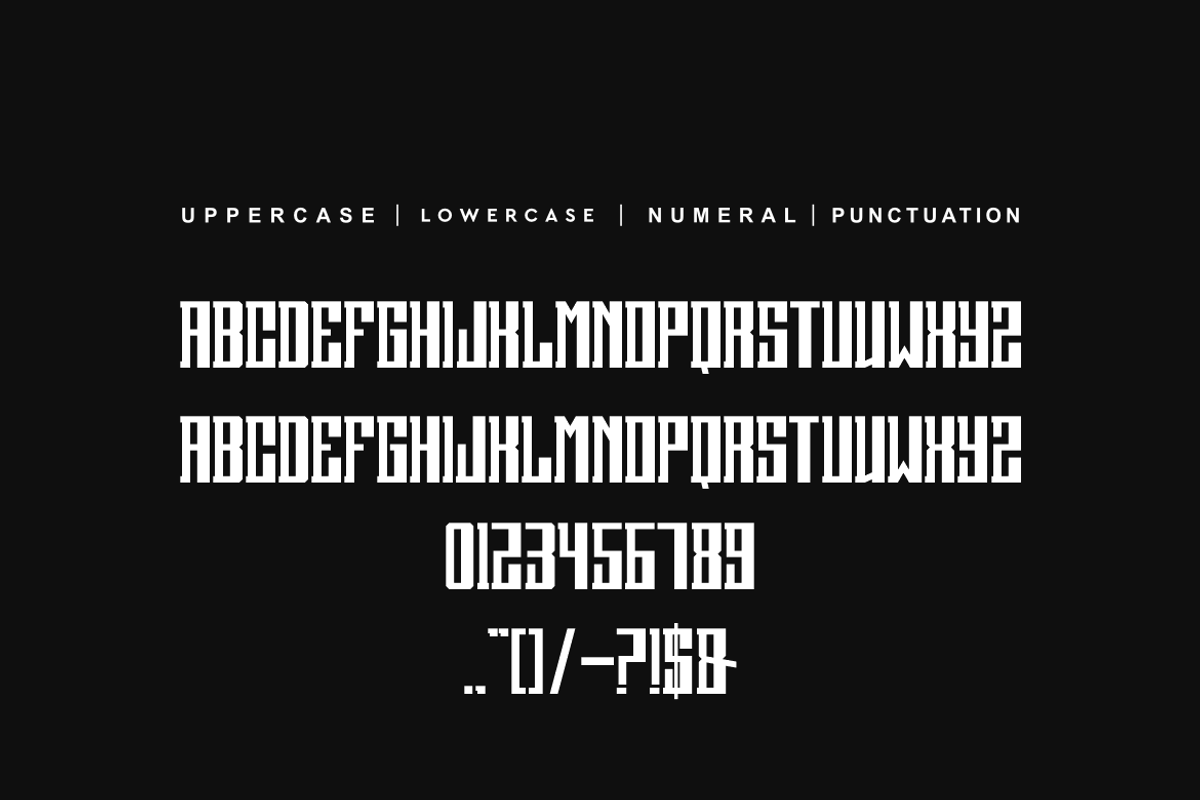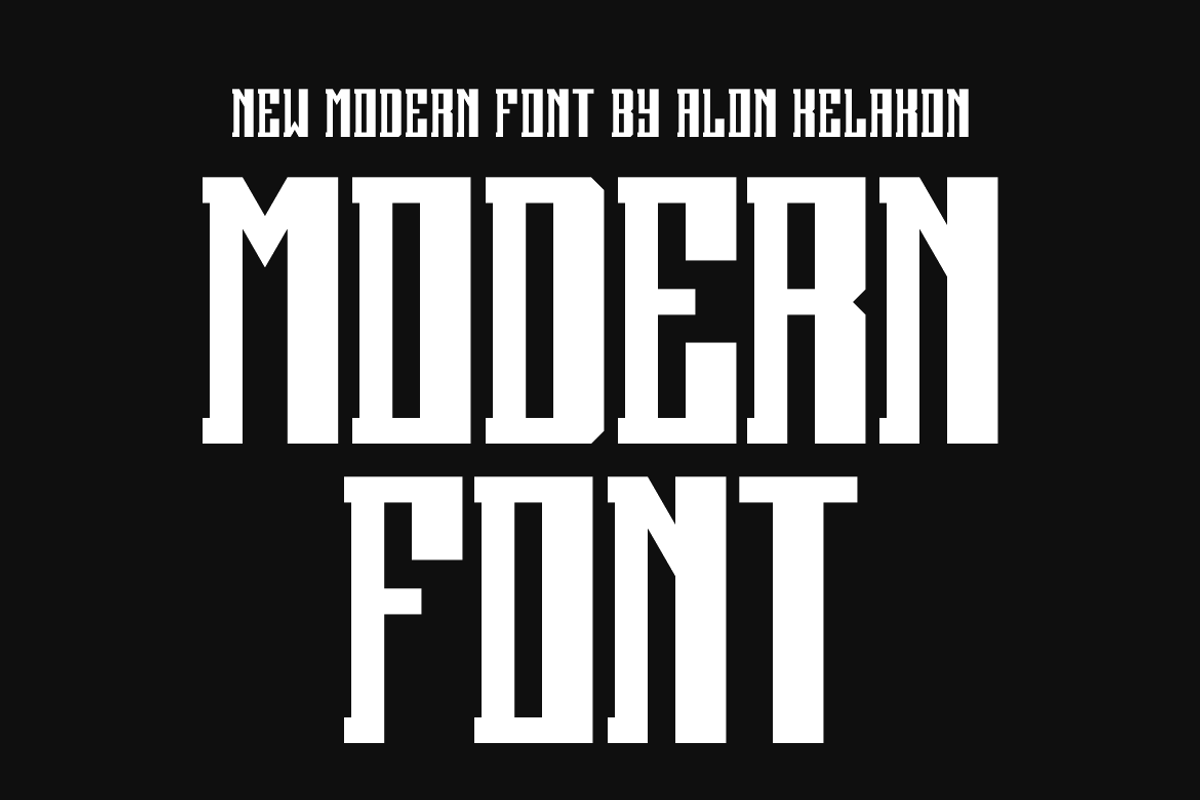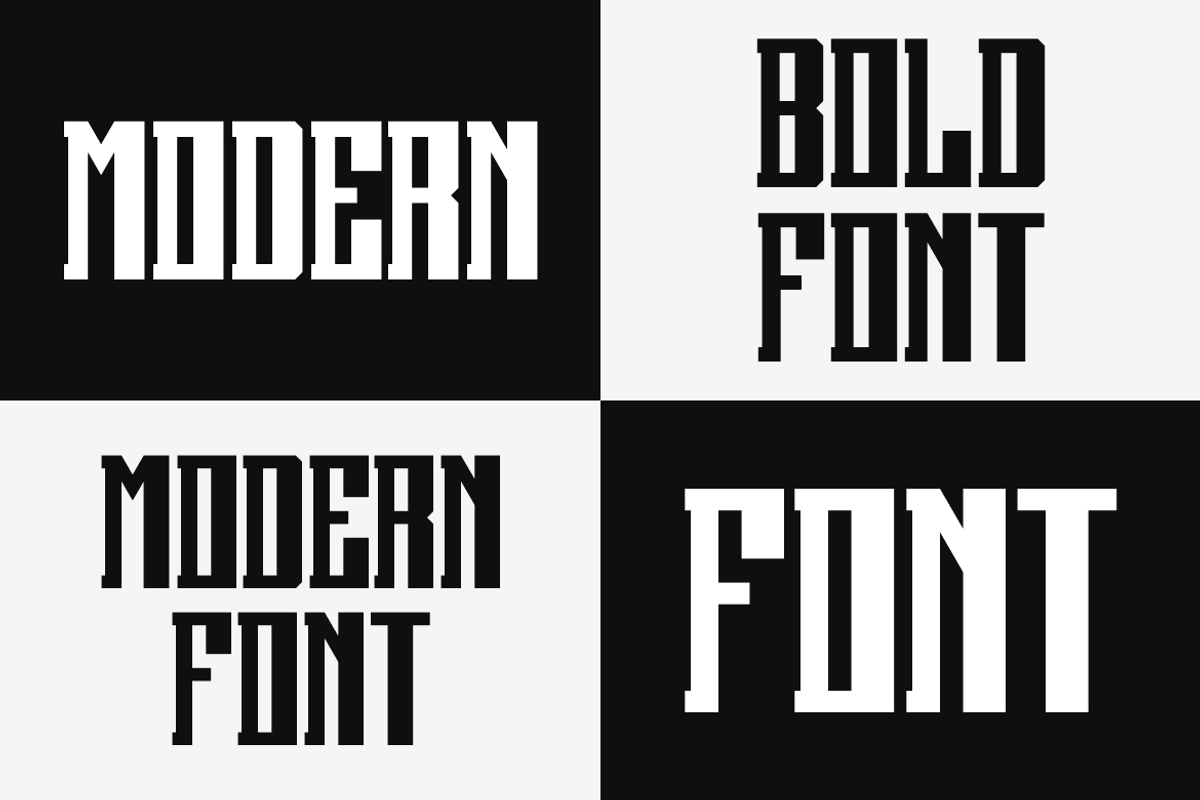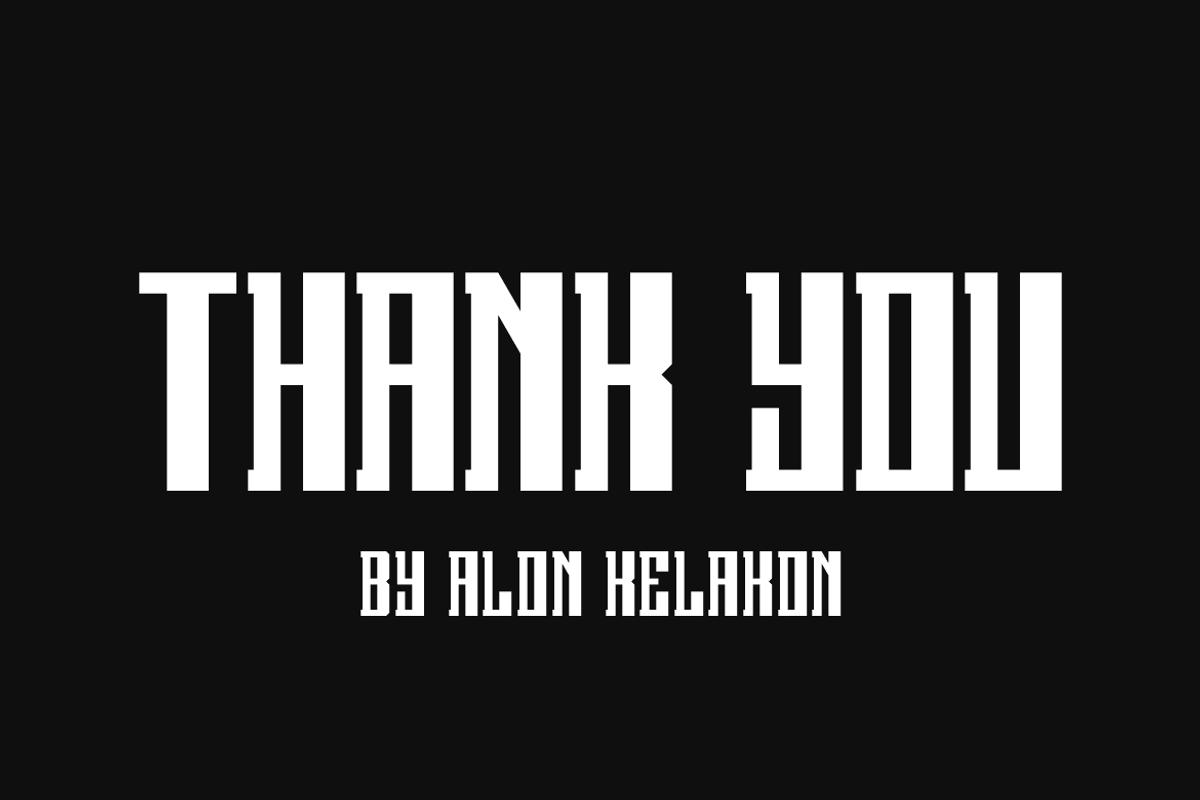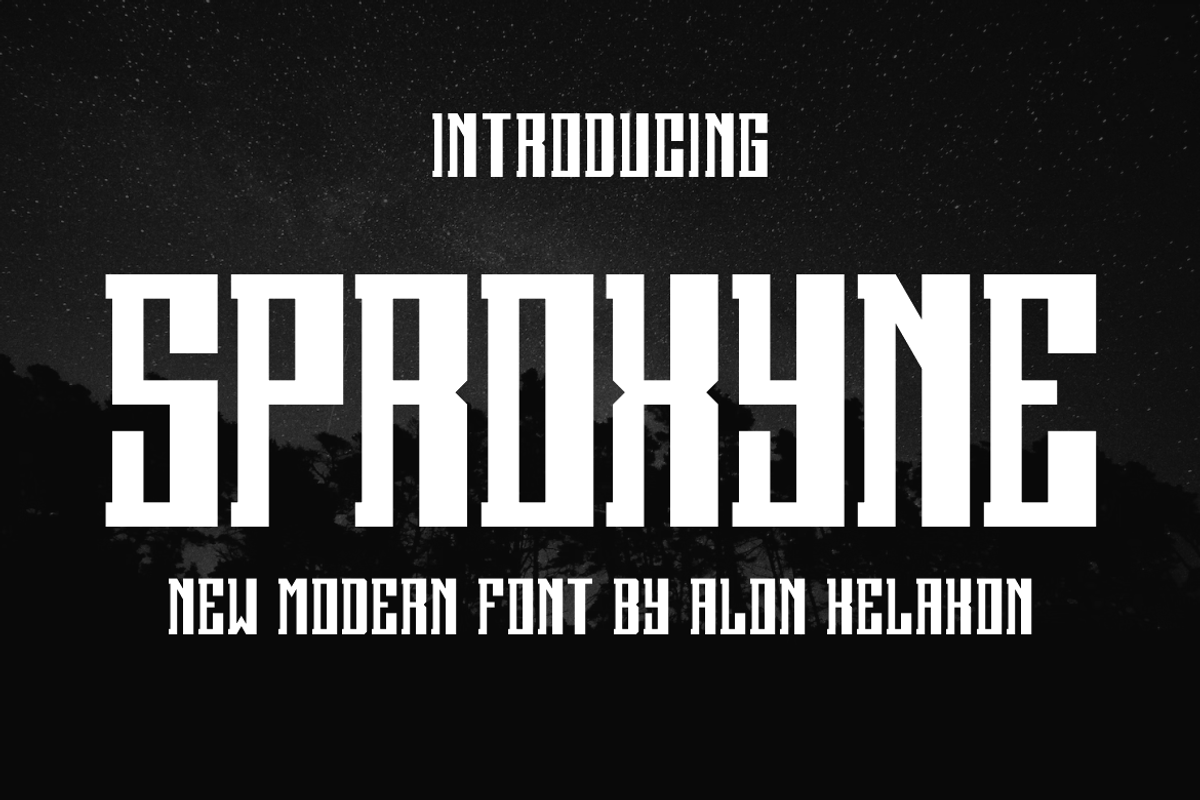
Sproxyne
Sproxyne Font is unique . Ready to use for your design like labeling, clothing, movie sceen, poster, movie title, gigs, album covers, logos, and much more.